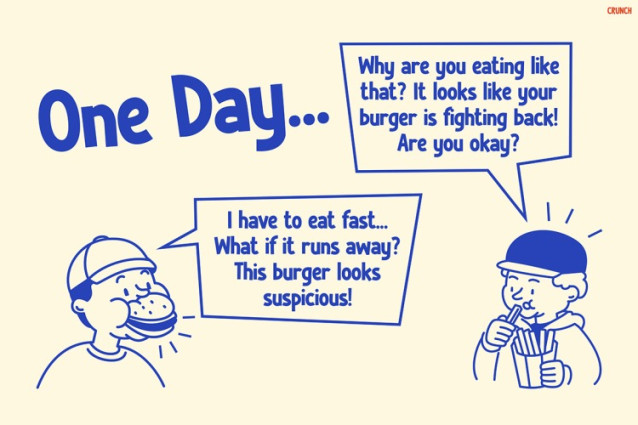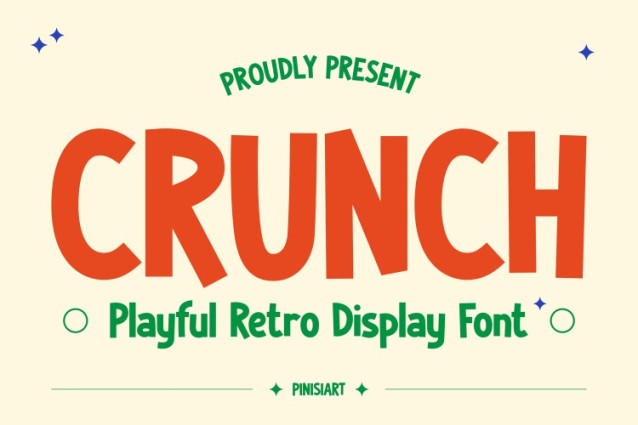
Crunch Playful Font
Crunch Playful Font is a bold, cheerful typeface designed to bring retro joy into your modern-day designs. With thick, rounded edges and a high-contrast look, it adds instant energy while staying warm and friendly. Inspired by classic snack packaging, old-school diner signage, and cartoon titles, it creates an engaging vibe that feels nostalgic yet fresh.
Because of its chunky letterforms, this font stands out clearly in both uppercase and lowercase use. It’s great for attention-grabbing headlines, but it also performs well in short playful texts. Plus, its quirky style makes it an excellent choice for creative, kid-friendly designs that need both fun and clarity.
From the previews, you can see how Kids Font CRUNCH adapts beautifully across various themes—ranging from comic-style conversations to holiday posters and food branding. It’s vibrant, expressive, and easy to apply across print or digital projects alike.